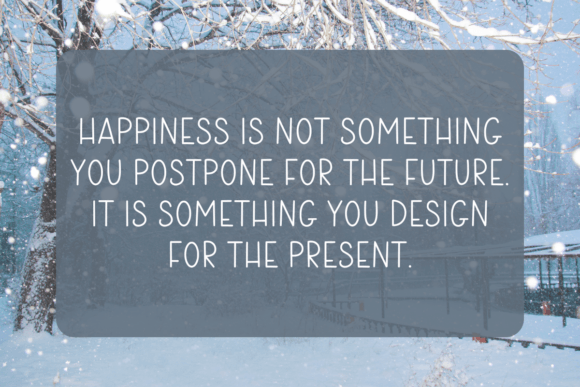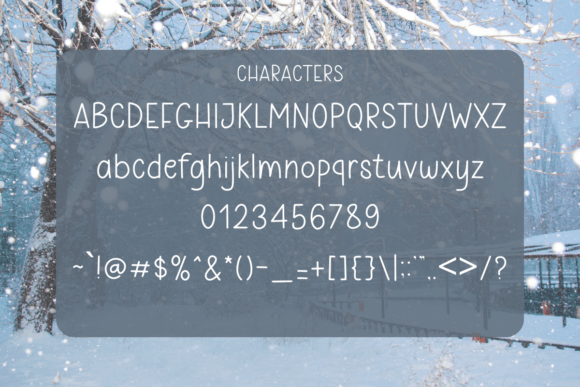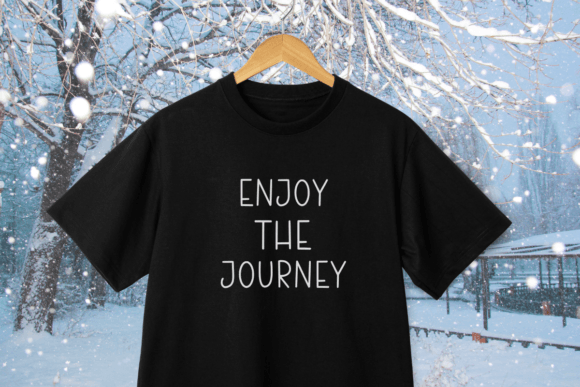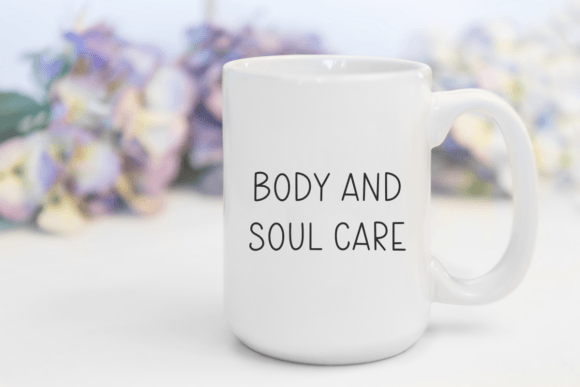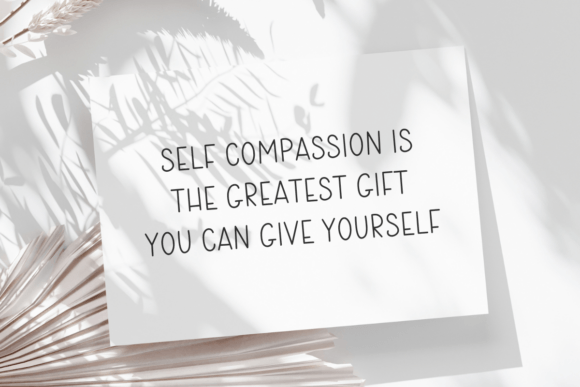
Introducing Event Snow Font: The Fun and Versatile Sans Serif Font for Your Designs
Are you tired of using the same old fonts for your designs? Look no further than Event Snow Font, a fun and unique sans serif font that’s perfect for adding a touch of personality to your projects. With its natural and distinctive style, Event Snow Font is incredibly versatile and can be used for a wide range of designs, from festive holiday projects to modern branding and advertising materials.
The Unique Style of Event Snow Font
Event Snow Font boasts a fresh and modern sans serif design that’s both clean and elegant. Its unique style is characterized by subtle rounded edges and a friendly feel, making it perfect for designs that require a human touch. The font’s natural and effortless look makes it easy to read and understand, even at small sizes.
One of the standout features of Event Snow Font is its ability to add a touch of whimsy and fun to any design. Its playful and carefree style makes it perfect for projects that require a lighthearted and creative approach, such as holiday cards, party invitations, and children’s book illustrations.
The Versatility of Event Snow Font
The only limit to using Event Snow Font is your imagination! This incredibly versatile font can be used for a wide range of designs, including:
- Holiday projects: Use Event Snow Font to create festive holiday cards, gift tags, and decorations that are sure to delight.
- Branding and advertising: Add a touch of personality to your brand with Event Snow Font, perfect for logos, business cards, and marketing materials.
- Party invitations: Create fun and playful party invitations with Event Snow Font, perfect for birthdays, baby showers, and other celebrations.
- Children’s book illustrations: Use Event Snow Font to add a touch of whimsy and fun to your children’s book illustrations.
- Social media graphics: Add a pop of personality to your social media graphics with Event Snow Font, perfect for Facebook, Instagram, and Twitter.
Why Designers and Crafters Love Event Snow Font
Event Snow Font has quickly become a favorite among designers and crafters, and for good reason. Here are just a few reasons why:
- Easy to read: Event Snow Font is clear and easy to read, even at small sizes.
- Unique style: Event Snow Font’s distinctive style sets it apart from other fonts and adds a touch of personality to any design.
- Versatile: Event Snow Font can be used for a wide range of designs, from festive holiday projects to modern branding and advertising materials.
- Fun and playful: Event Snow Font adds a touch of whimsy and fun to any design, making it perfect for projects that require a lighthearted approach.
Tips for Using Event Snow Font
Here are a few tips for getting the most out of Event Snow Font:
- Use it sparingly: Event Snow Font is perfect for adding a touch of personality to your designs, but use it sparingly to avoid overwhelming the reader.
- Pair it with other fonts: Event Snow Font pairs well with other sans serif fonts, try pairing it with a bold font for a striking contrast.
- Experiment with colors: Event Snow Font looks great in a variety of colors, try experimenting with different colors to find the perfect look for your design.
In conclusion, Event Snow Font is a fun and versatile sans serif font that’s perfect for adding a touch of personality to your designs. With its unique style and incredible versatility, it’s no wonder that Event Snow Font has become a favorite among designers and crafters. So why wait? Download Event Snow Font today and start adding a touch of whimsy and fun to your designs!